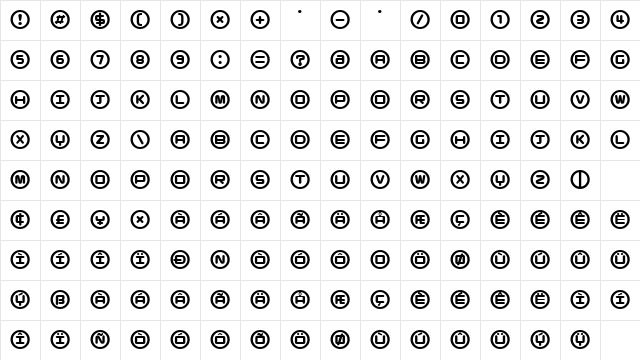
K "Pill Regular
Design Context for K "Pill
K "Pill is a composed and adaptable typeface that performs quietly and consistently across a wide range of design contexts.